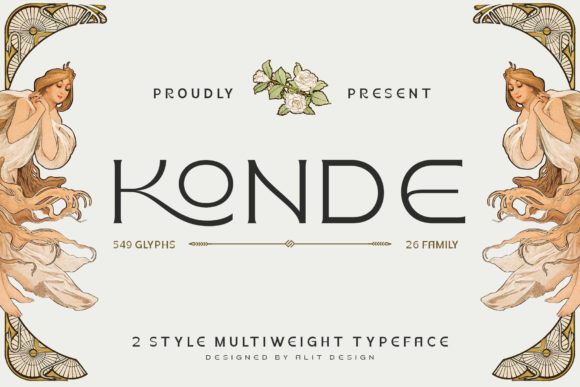
In a digital realm brimming with visual noise, your designs yearn for a distinctive voice to rise above the ordinary. Meet Konde Font, a display font that will cast a spellbinding charm upon your creative endeavors. Its bewitching glyphs, carefully hand-crafted by the skilled artisans at Alit Design, are imbued with a timeless allure that transcends the boundaries of convention.
Konde Font's essence lies in its ability to transform mundane text into captivating visual symphonies. Its meticulously crafted curves and flourishes evoke a sense of elegance and sophistication, while its sharp edges exude a touch of modernity. Whether you're crafting logos, branding materials, or social media graphics, Konde Font will elevate your designs to new heights of visual enchantment.